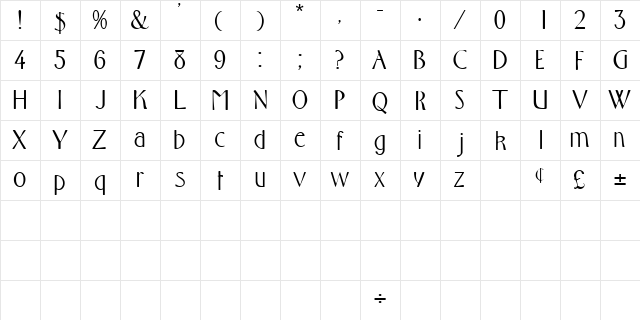
ToqueDisplaySSK Regular
Design Context for ToqueDisplaySSK Typeface
ToqueDisplaySSK is built around its visual character rather than neutral utility — its distinctive forms are designed to make an impression at display sizes.
Font Pairing: Pair with a clean neutral sans-serif for body copy to let ToqueDisplaySSK's character lead without overwhelming the composition.
Pro Tip: Use ToqueDisplaySSK exclusively at display sizes — it was designed to be seen, not read at length. Let a neutral companion handle body copy.